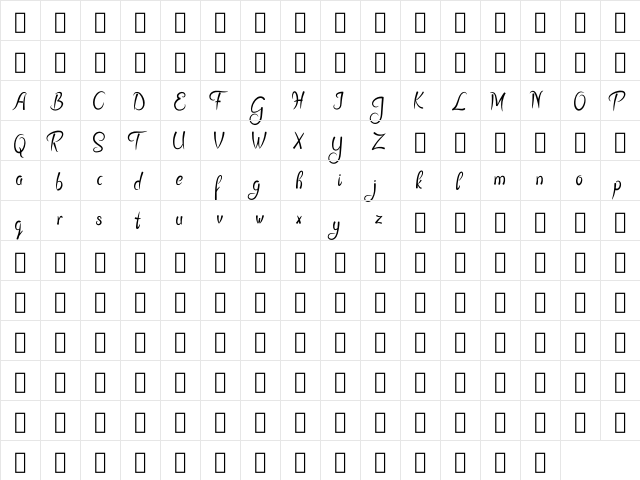
Sykenga Demo
Design Context for Sykenga Typeface
Sykenga is a composed and adaptable typeface that performs quietly and consistently across a wide range of design contexts.